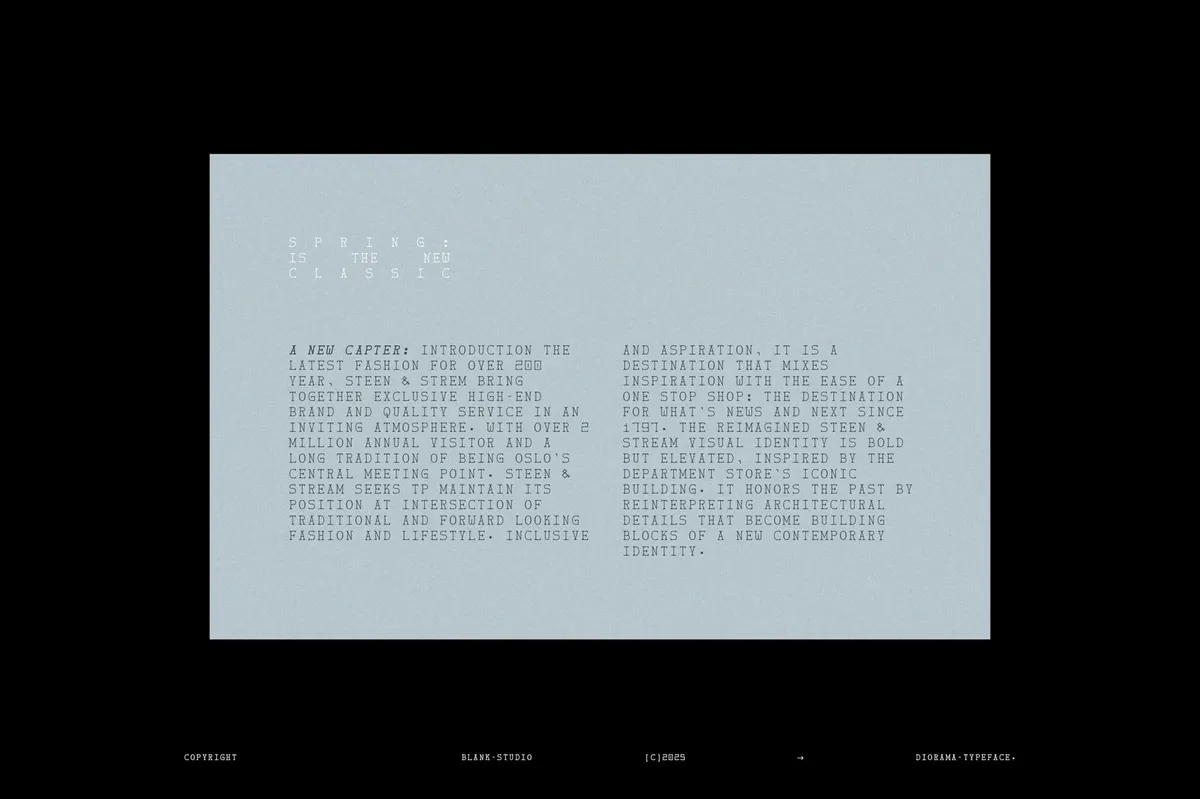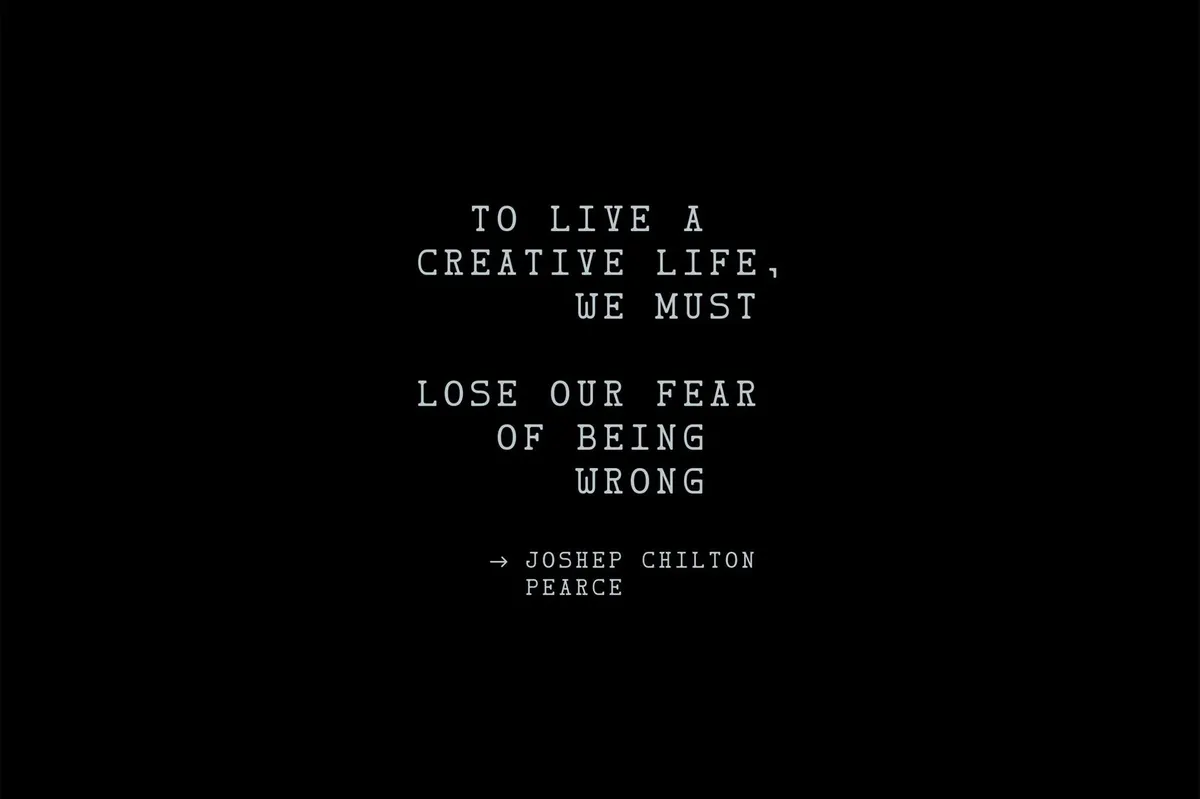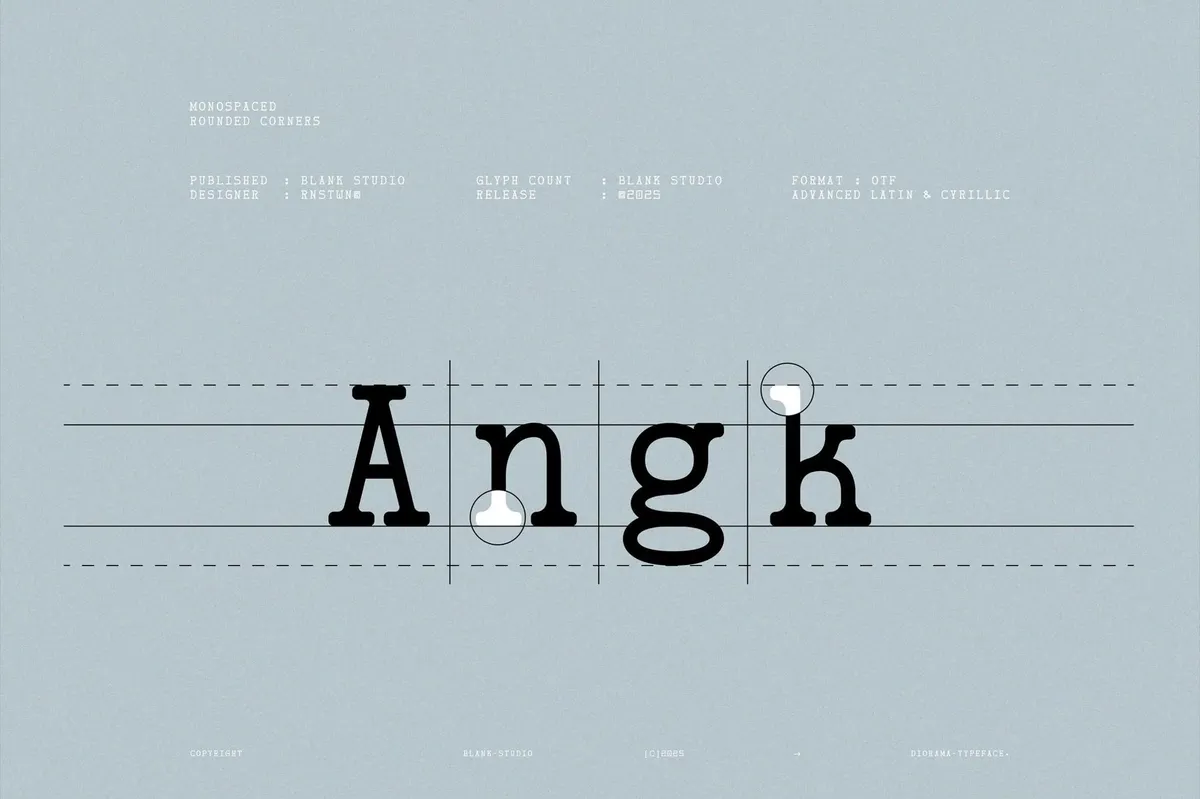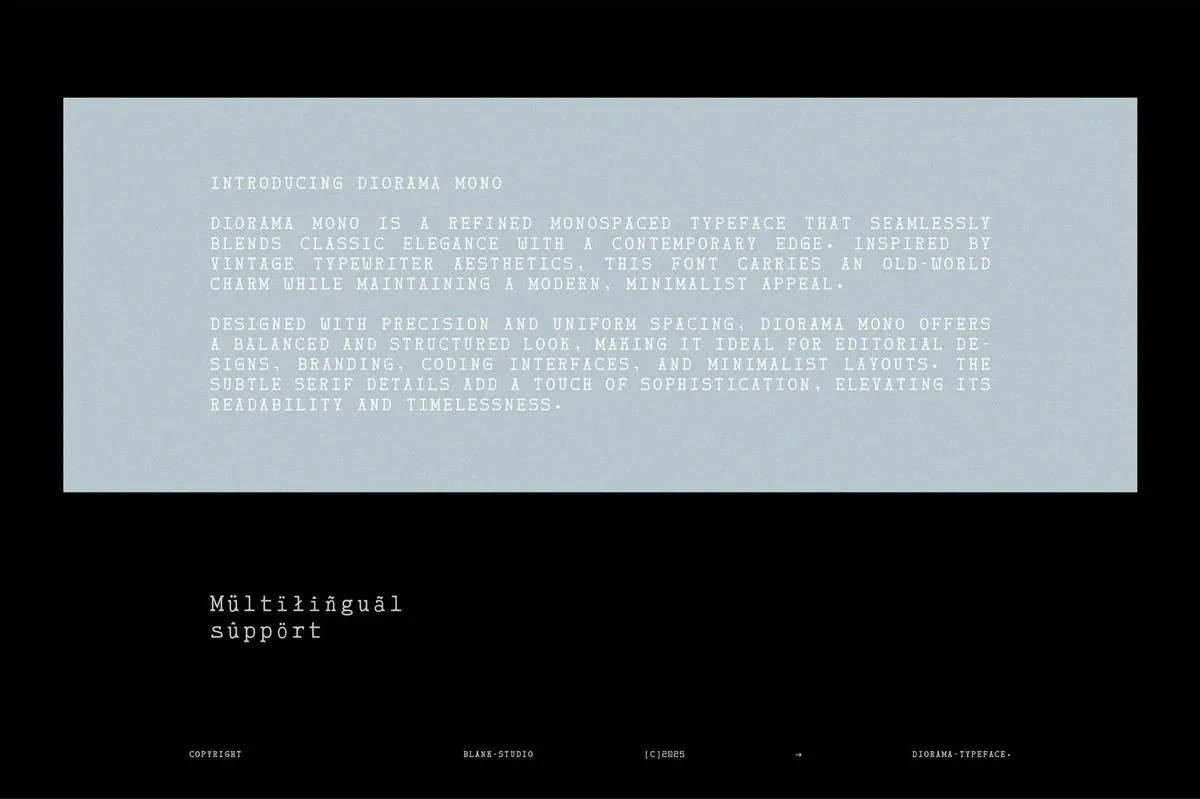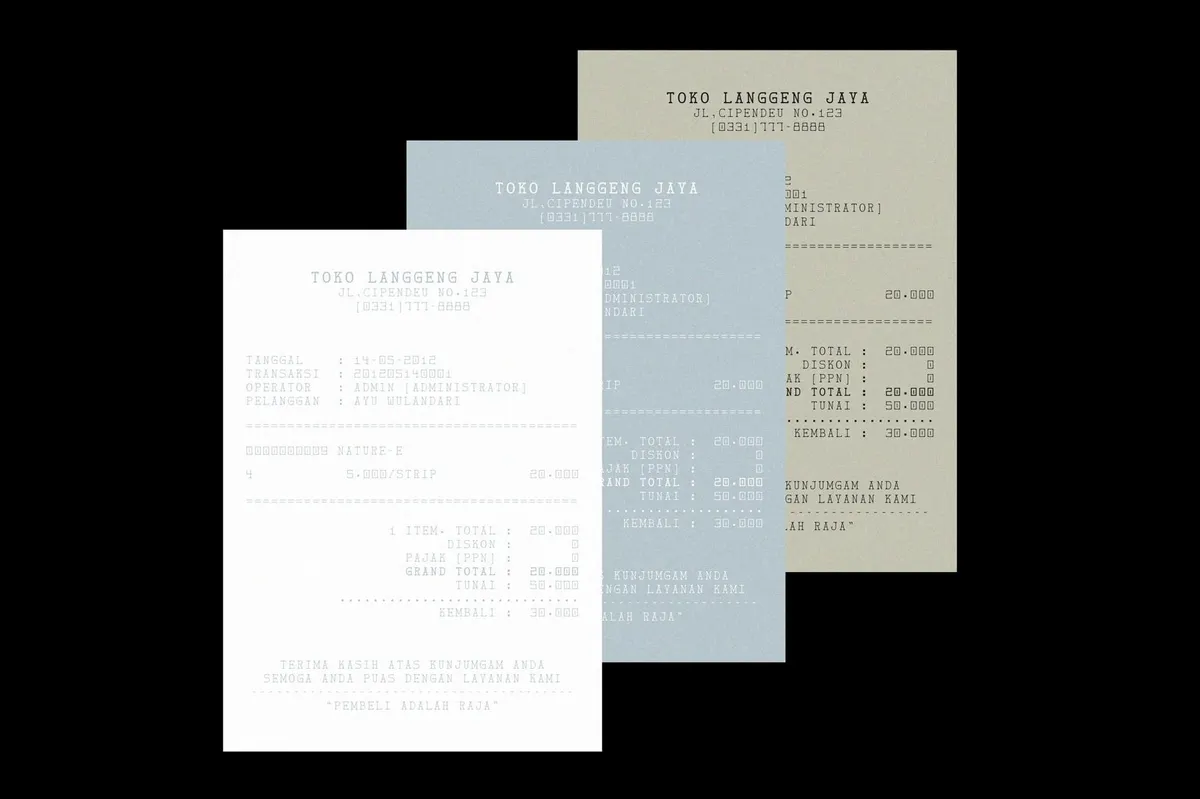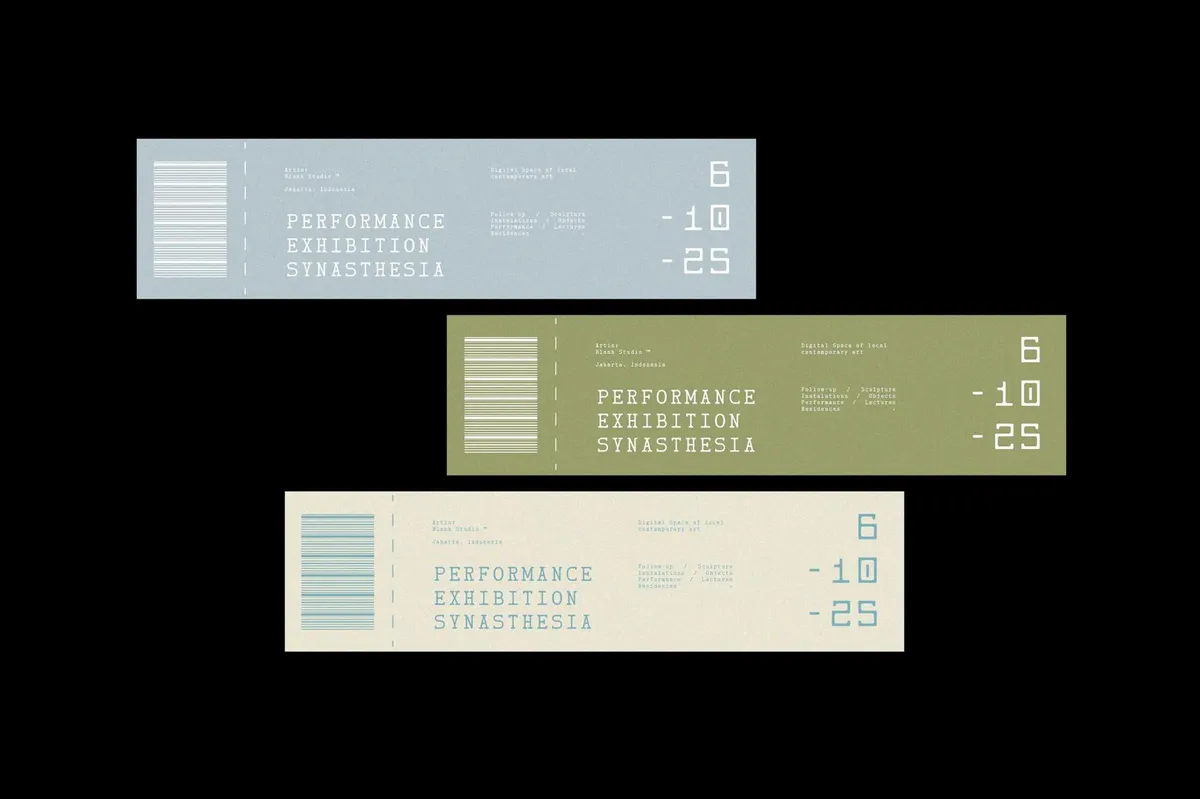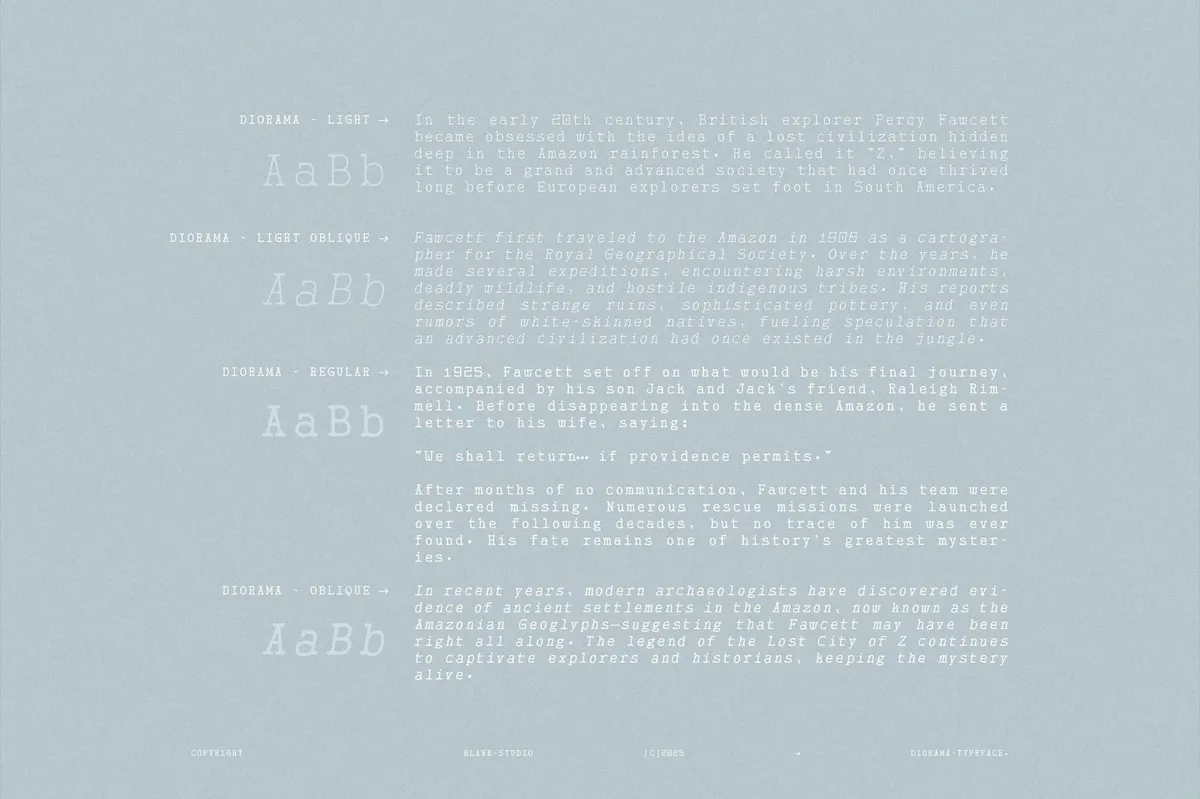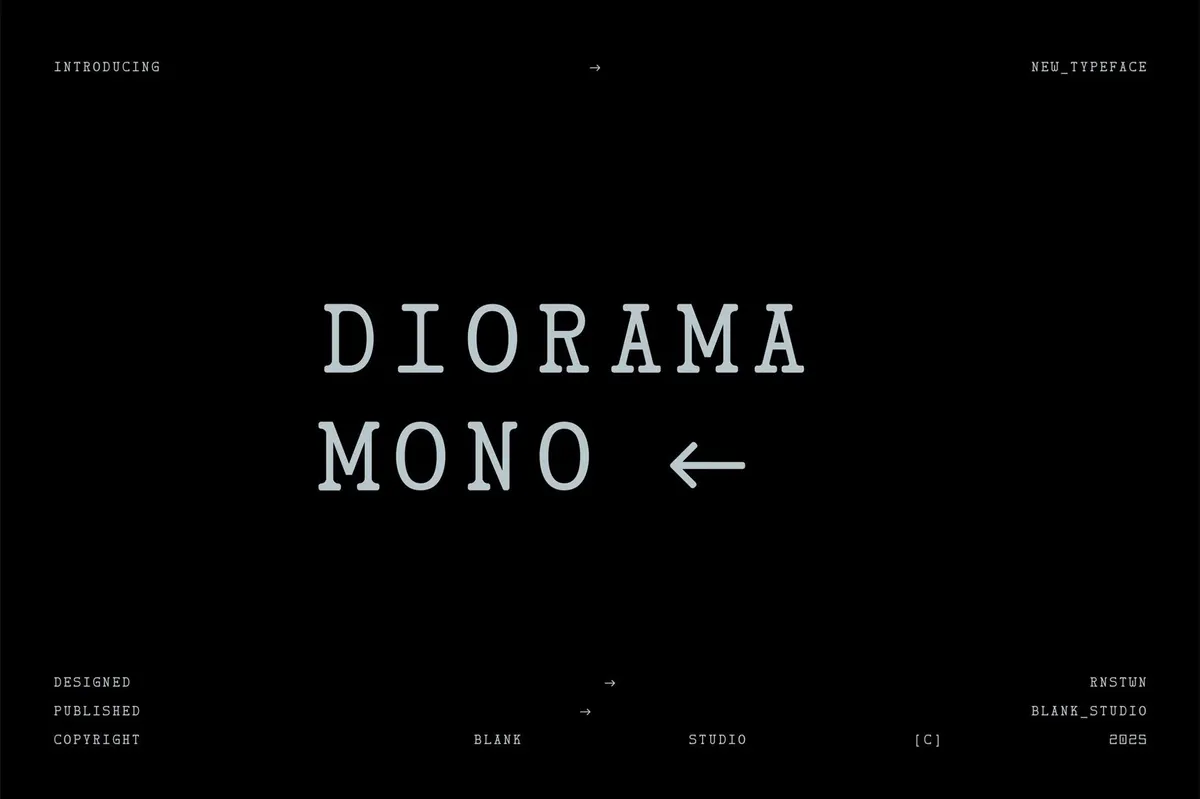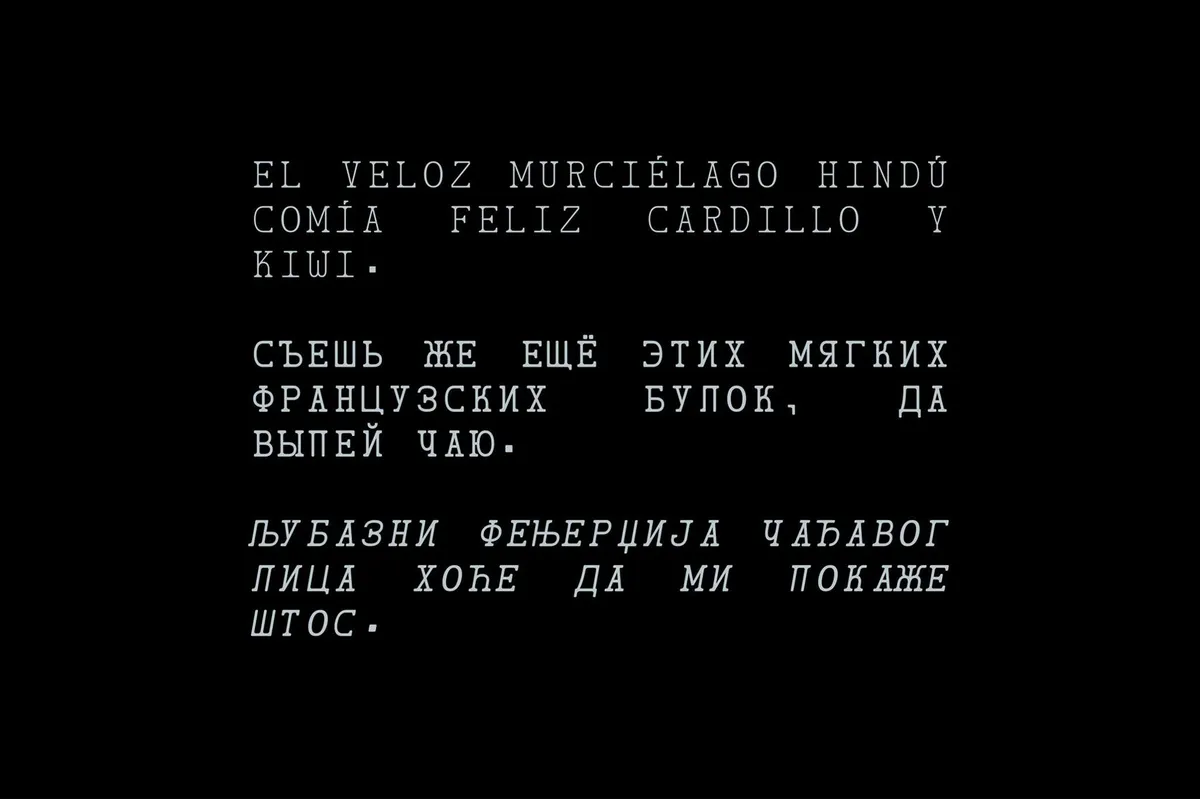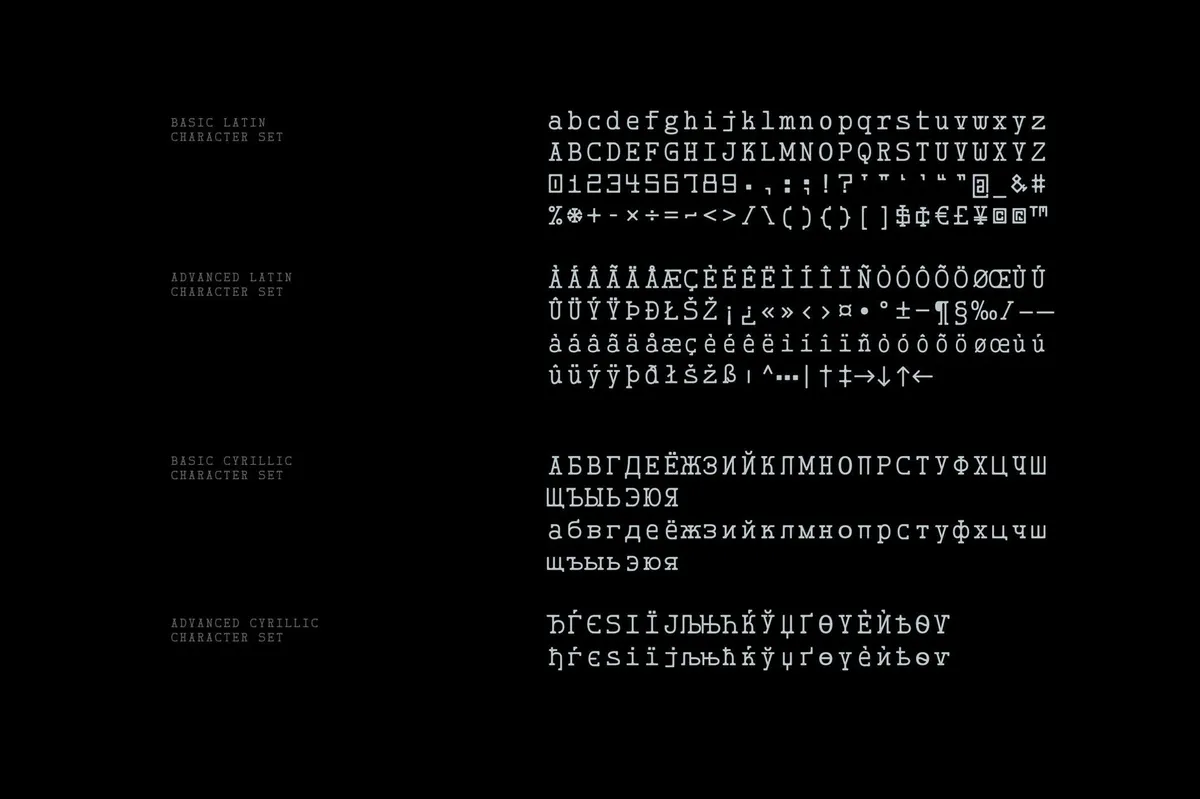
Diorama Mono Font Family
Like something unearthed from a Cold War archive or the blinking terminal of a spy agency mainframe, Diorama Mono carries the mechanical elegance of a retro machine font and the strict poise of modern coding typography. It’s precise and restrained — the kind that pairs well with confidential files, intercepted transmissions, or sleek editorial spreads.
This monospaced serif comes in 4 distinct styles (Light, Light Oblique, Regular, Oblique) and includes advanced multilingual support, covering Latin and Cyrillic alphabets in full. Diorama Mono delivers the structure of old intelligence reports with the clarity of modern design — perfect and precise for building a branding system with a retro-tech tone, composing an academic dossier, or simply craving a timelessly minimal type solution.